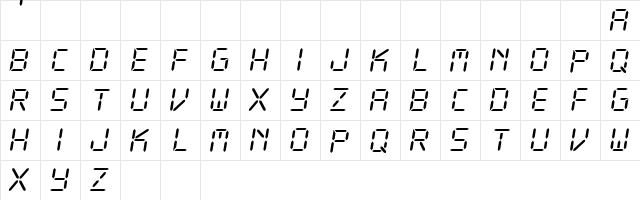
CF LCD 521 Regular Font Preview
CF LCD 521 Regular
CF LCD 521 Regular Font Details
| Foundry | CloutierFontes |
| Designer | Steve Cloutier |
Design Context for CF LCD 521 Typeface
CF LCD 521 takes a measured approach to typography — its balanced proportions and neutral character make it a reliable workhorse for both digital and print work.